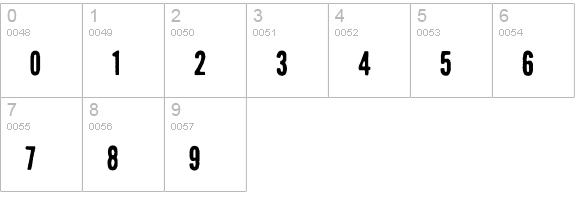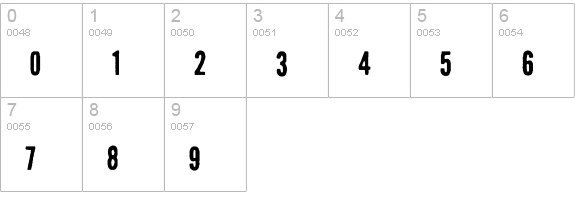
Dirty-SevenOne font is a bold and edgy typeface that exudes a sense of urban grit and artistic flair. With its unique and eye-catching design, this font is perfect for adding a touch of character to your projects. Whether you're creating posters, album covers, or social media graphics, Dirty-SevenOne font will make a statement. Best of all, this font is available for free download at FontsMarket.com, making it easily accessible for all your creative needs. Get your hands on Dirty-SevenOne font today and elevate your designs with its raw and dynamic appeal.